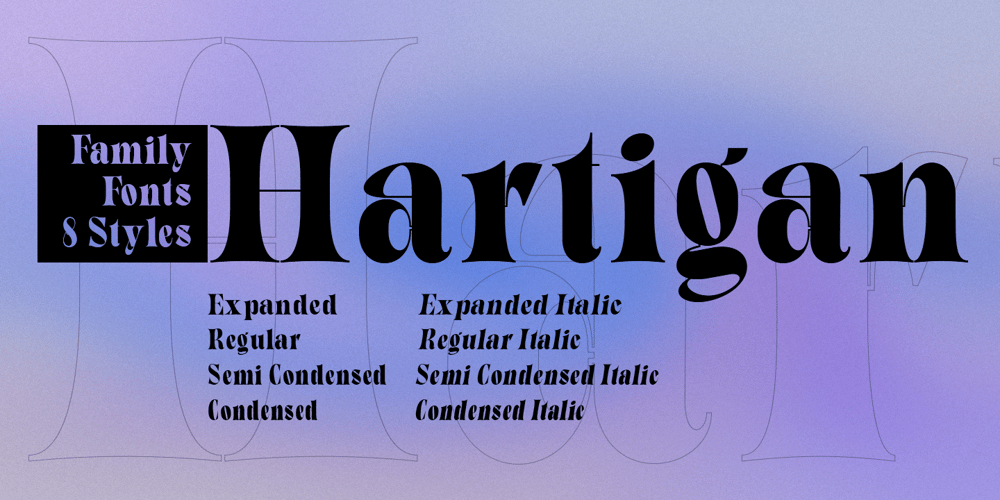
Hartigan
Hartigan Font Family was designed by Roiyani Teungku and published by Groen Studio. Hartigan contains 8 styles and family package options. Hartigan is a font family that has 8 variations, divided into normal and italic styles.The Hartigan font is a unique serif font, because it has a tip that reflects Japanese style or character.